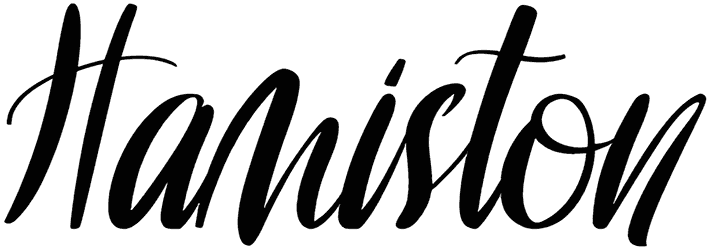
Hamiston Font
It is very innovative and amazing that Hamiston, this handwritten font, can make a very lasting impression on your writing. It may be used in various works, including logos, blog headers, branding, posters, and more, and…
It is very innovative and amazing that Hamiston, this handwritten font, can make a very lasting impression on your writing. It may be used in various works, including logos, blog headers, branding, posters, and more, and boom.